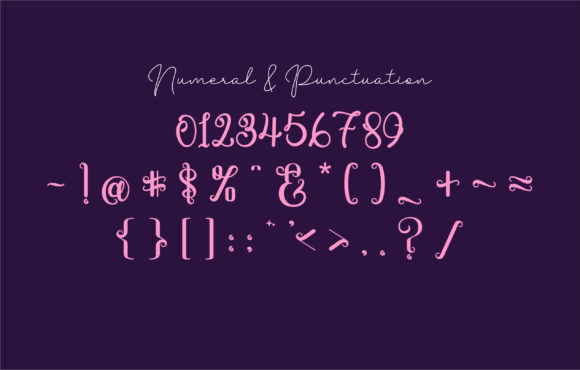
About Unicorn Font
Unicorn is a playful and fun handwritten font. This font is so cute, with lots of magical alternates. You can also use it as a monogram for a name.